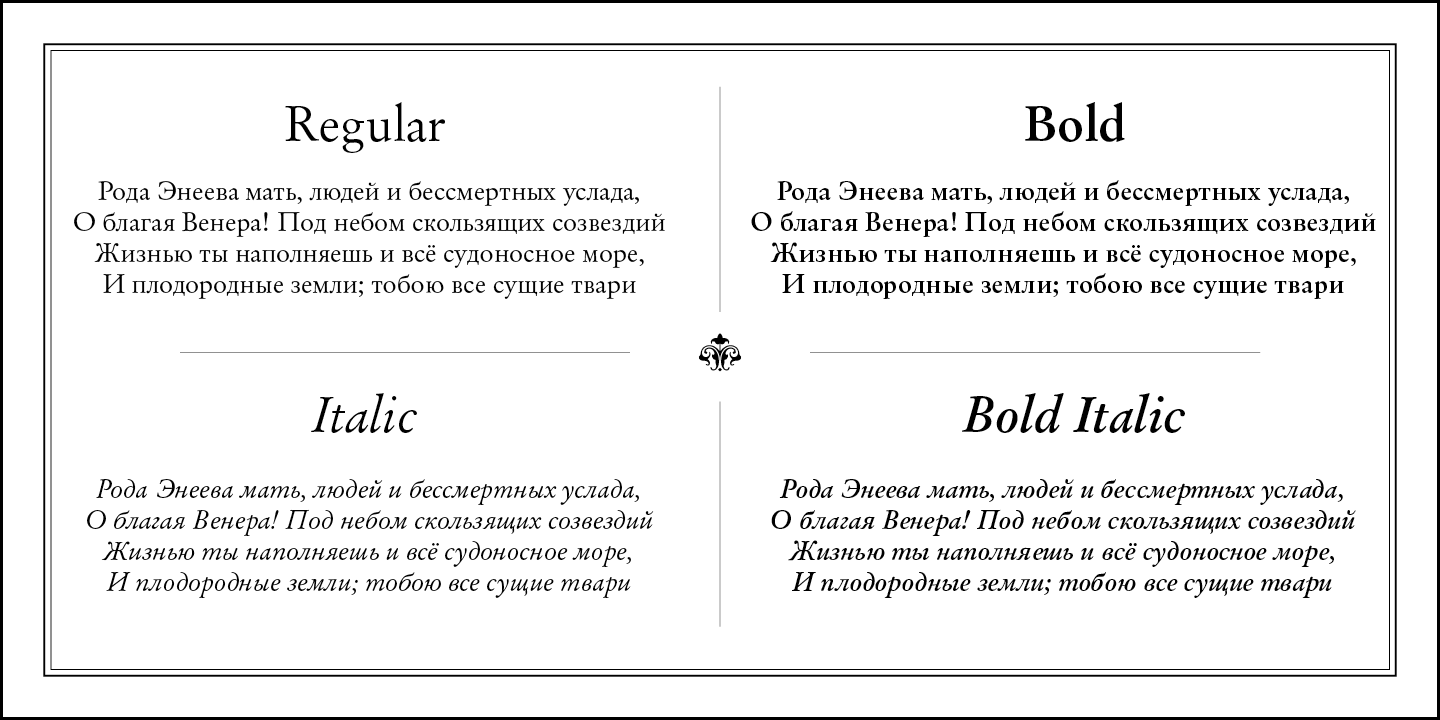
The Original Garamond Font is perfectly suited for numerous traditional and prestigious applications including book publishing, academic journals, literary magazines, law firm communications, university publications, historical documentations, luxury brand materials, wine labels, museum exhibitions, and formal correspondence. Its timeless elegance makes it particularly effective for educational institutions, publishing houses, legal practices, and luxury brands seeking to convey authority, tradition, and scholarly sophistication in their professional communications and printed materials.
What makes the Original Garamond Font extraordinarily exciting is its authentic preservation of Renaissance typography mastery combined with modern digital precision. This classic serif typeface represents over 500 years of typographic evolution, capturing the original spirit of Claude Garamond's 16th-century designs while incorporating contemporary refinements that ensure optimal performance across today's media landscape. The font's distinguished character emerges from its humanistic proportions, elegant curves, and refined stroke contrasts that create an atmosphere of intellectual authority and cultural sophistication, making it perfect for institutions and brands seeking to establish credibility and timeless appeal.
The Original Garamond Font family encompasses multiple weights and styles designed to provide comprehensive typographic solutions for traditional publishing needs. The collection typically includes regular, italic, bold, and bold italic variants, with many versions offering small caps, old-style figures, and expert character sets that enhance the font's versatility for professional typography. Some editions may include ornamental initials, decorative borders, and historical alternates that provide additional design options for creating authentic period-appropriate layouts and sophisticated document designs.
Publishing professionals and academic institutions consistently choose the Original Garamond Font Free Download for its exceptional readability and classical beauty. The font features meticulously crafted spacing and kerning that ensures comfortable reading experiences in extended text applications, while its time-tested proportions maintain elegance and clarity across various sizes and printing conditions. The comprehensive character set includes uppercase and lowercase letters, numerals, punctuation marks, and special symbols, along with extensive Latin-based language support for international scholarly publications and multilingual academic projects.
The Original Garamond Font represents the pinnacle of classical typography, combining centuries of proven design principles with modern digital optimization. Its scholarly aesthetic provides the gravitas needed for academic and legal communications, while its refined elegance adds sophistication to luxury brand applications. The font's remarkable versatility allows it to work effectively in both traditional book publishing contexts and contemporary digital publications, ensuring consistent excellence across printed materials, e-books, academic papers, and formal document presentations.
Experience the timeless elegance and scholarly authority of the Original Garamond Font, the ultimate choice for classical typography excellence and professional distinction.